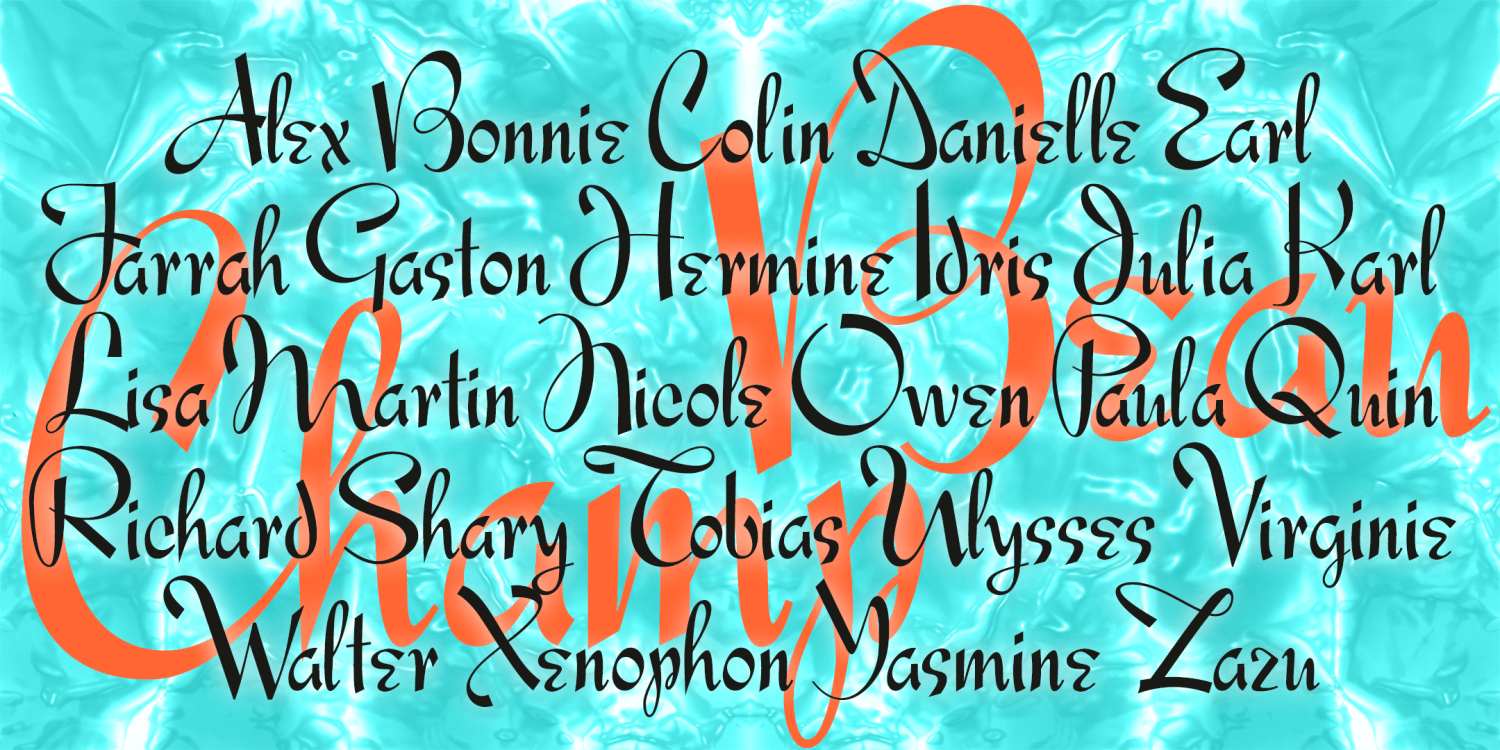
Easter Parade
EASTER PARADE is a retro vertical script, very stylish with a bold stroke and some crazy swashes. It was inspired by a sample of hand-lettering called simply "Modern Brush Script" in Alphabets: Ancient & Modern, compiled by J. B. Russell, 1945.
The Easter Parade font family includes 204 glyphs.
Easter Parade by Harold's Fonts